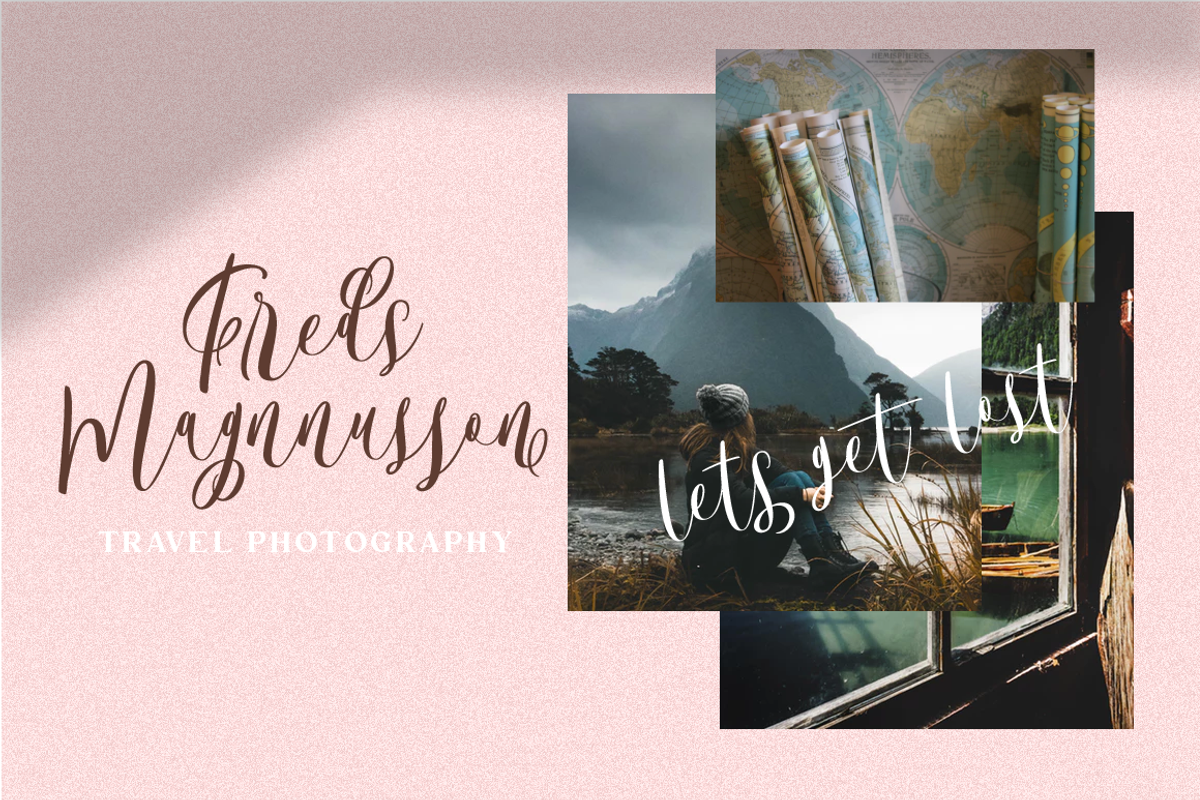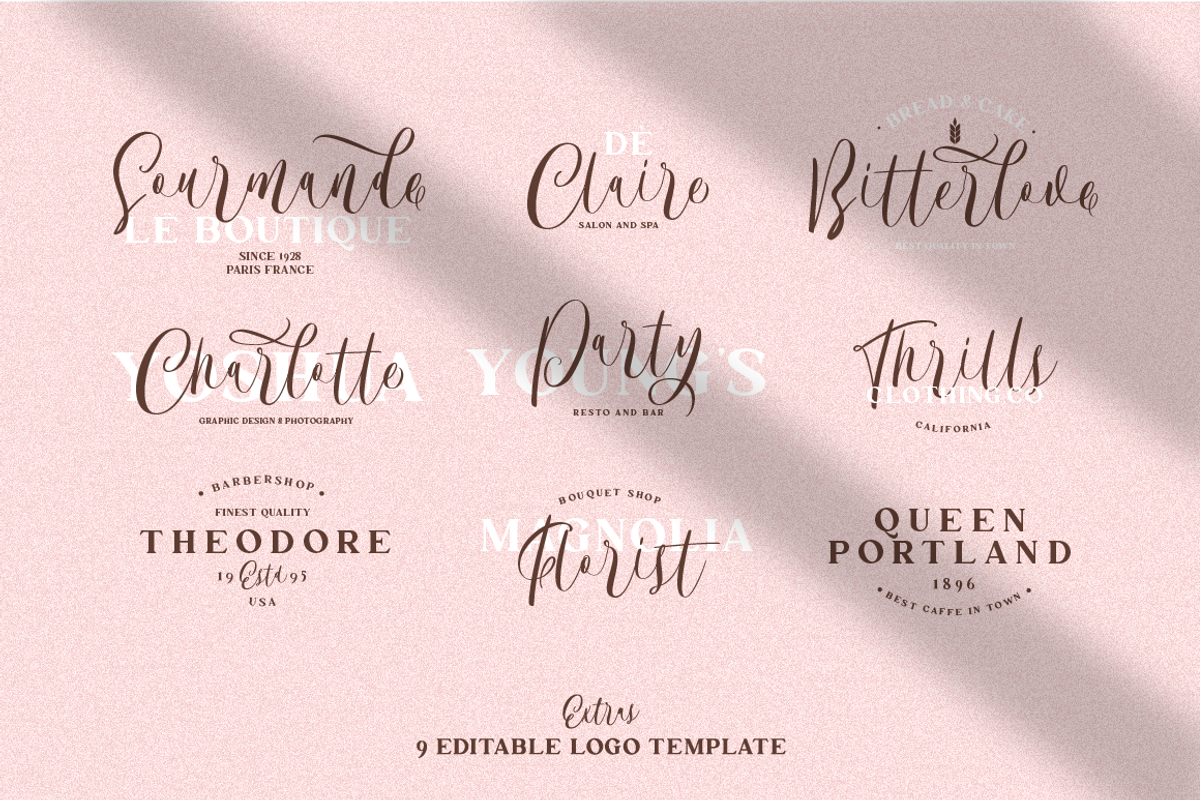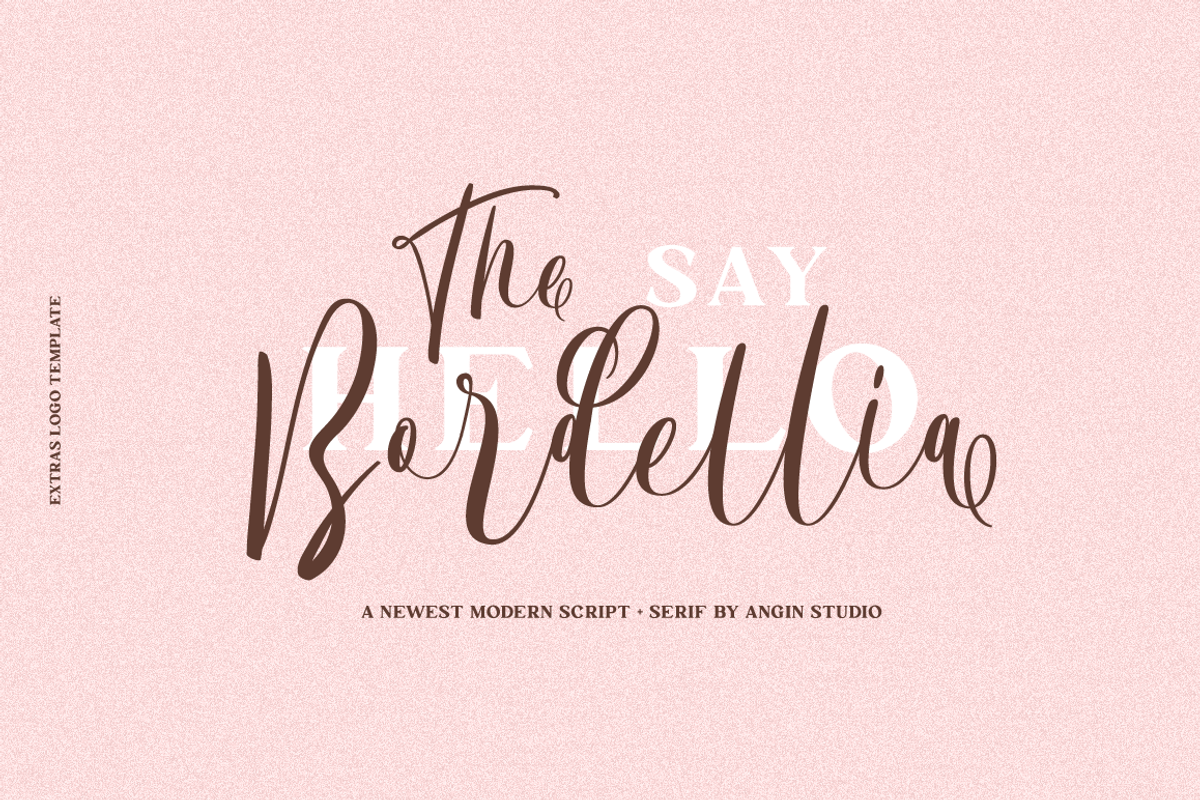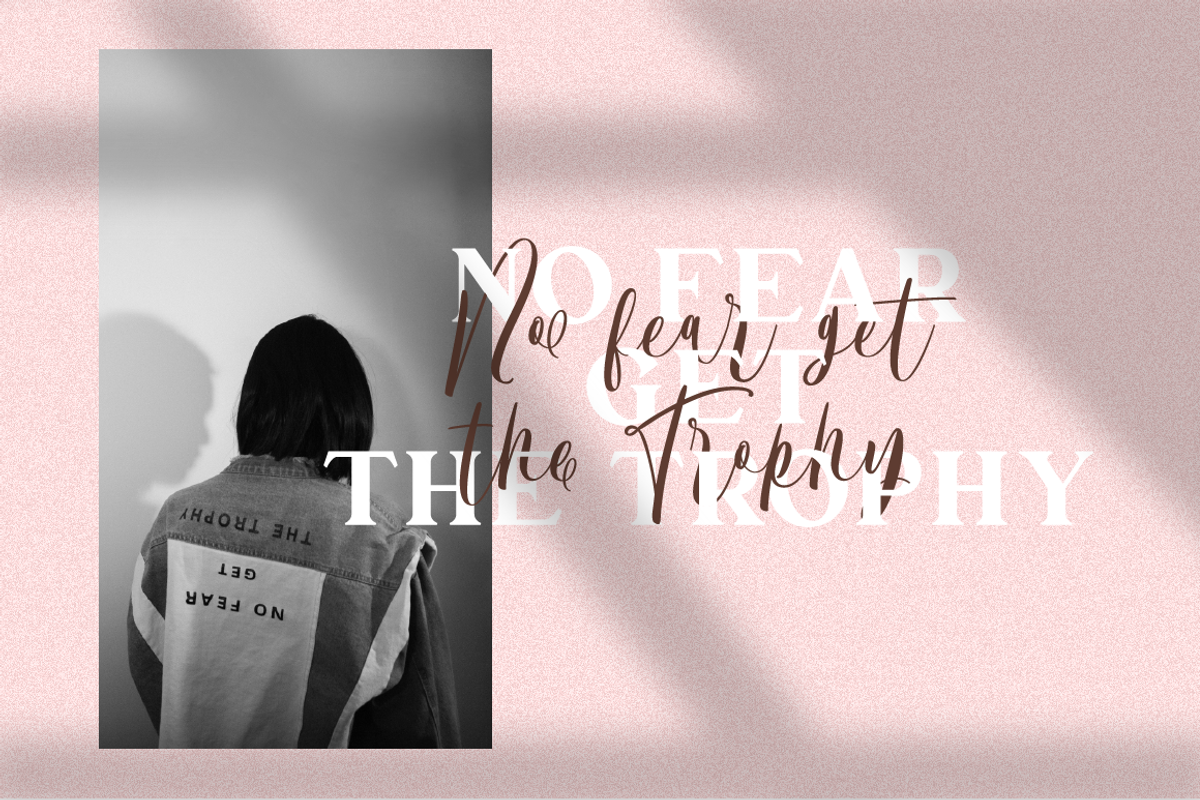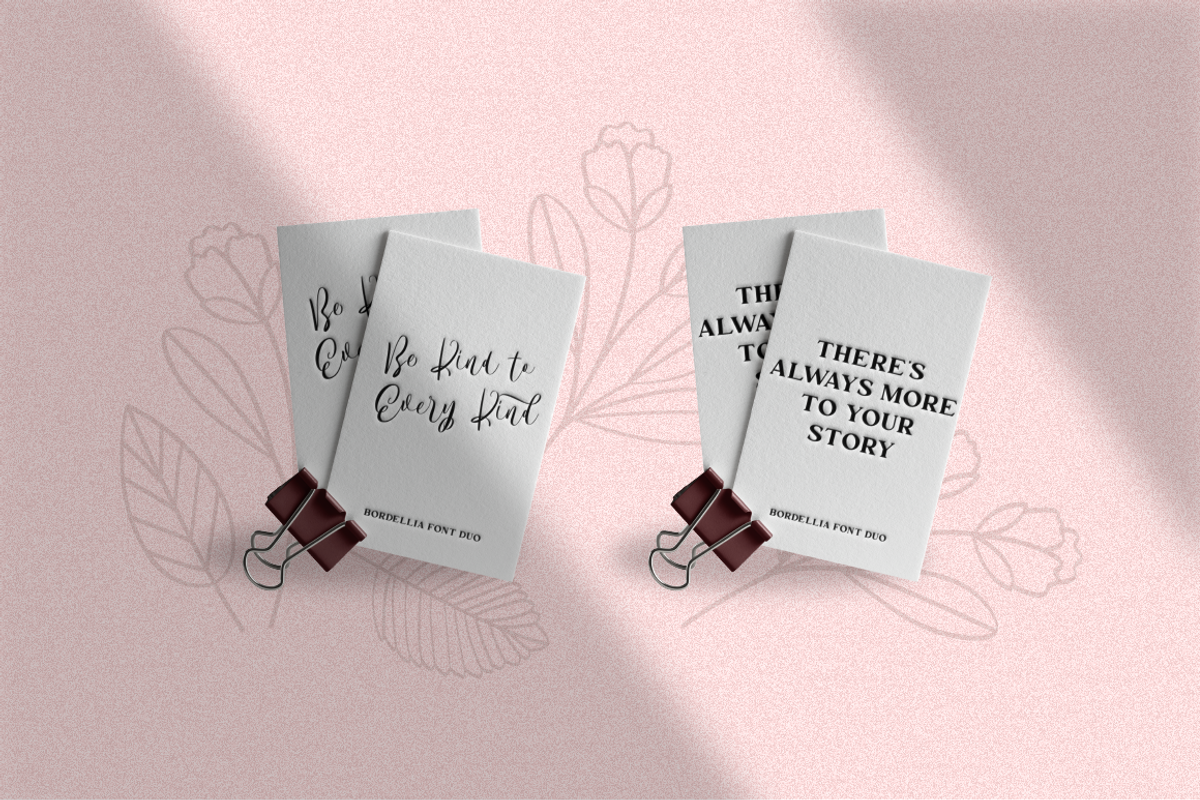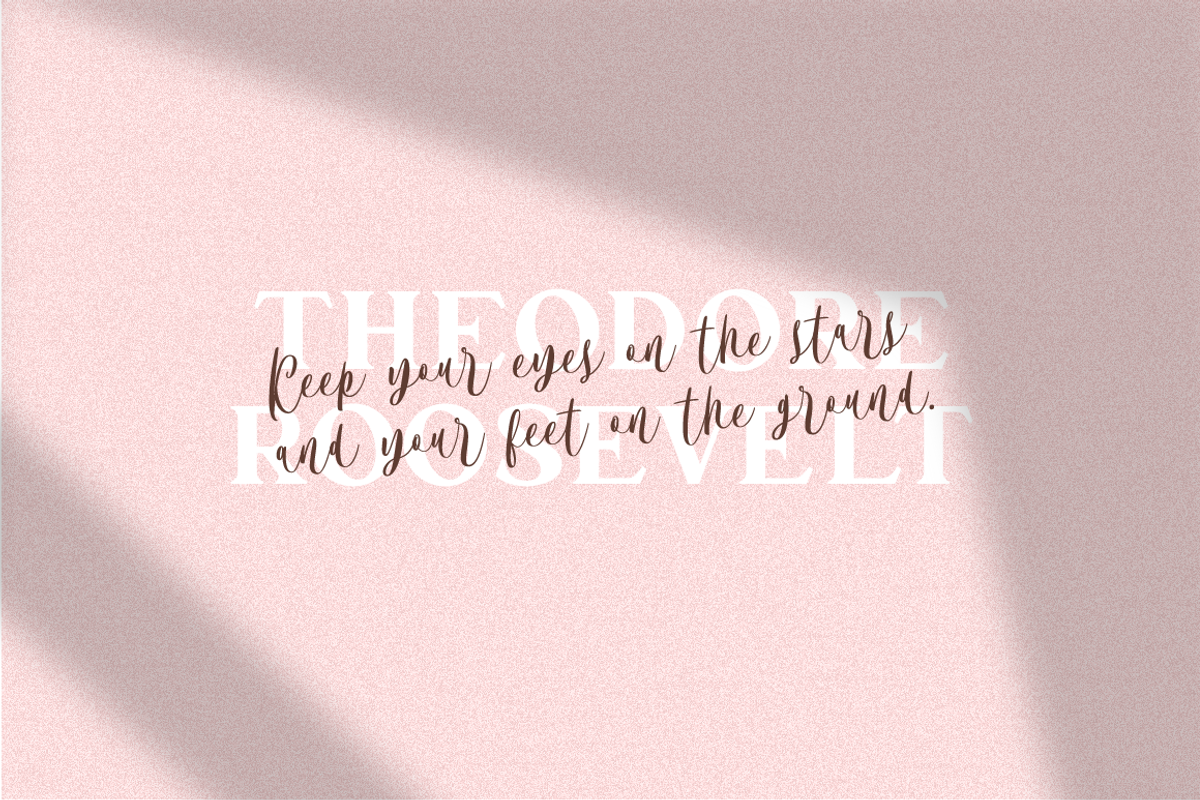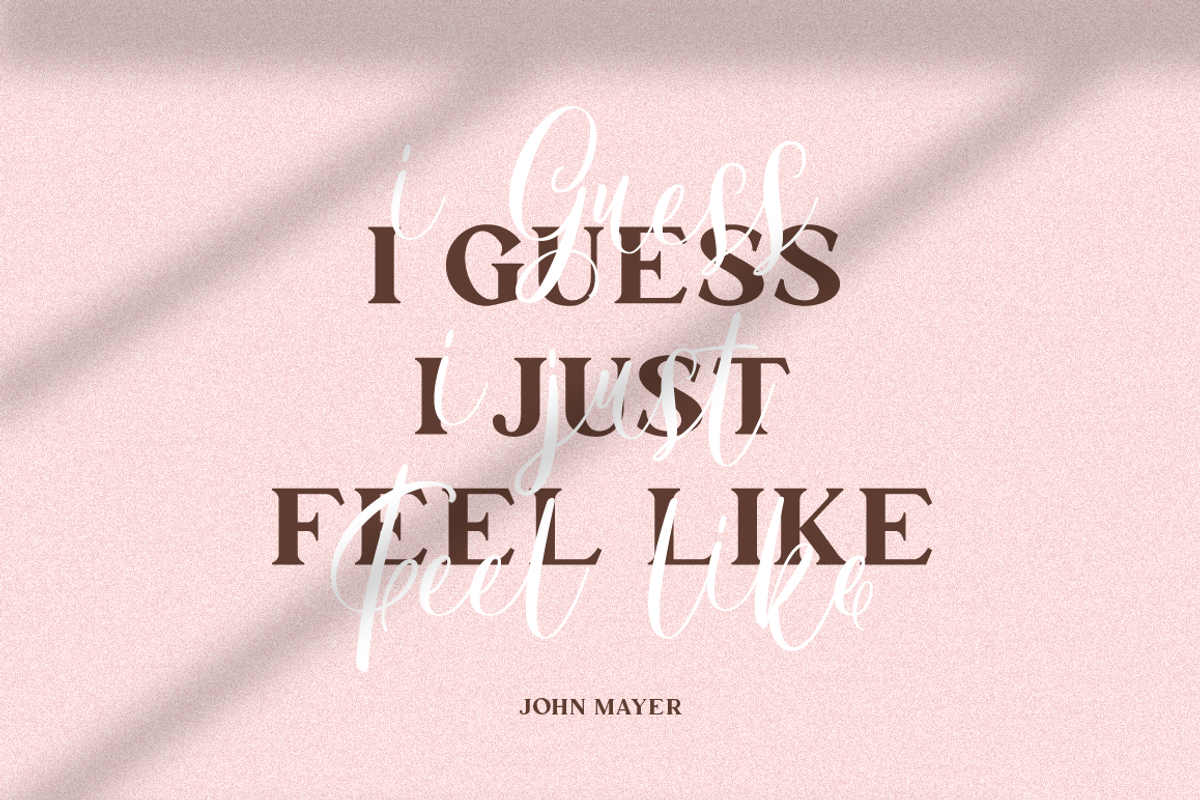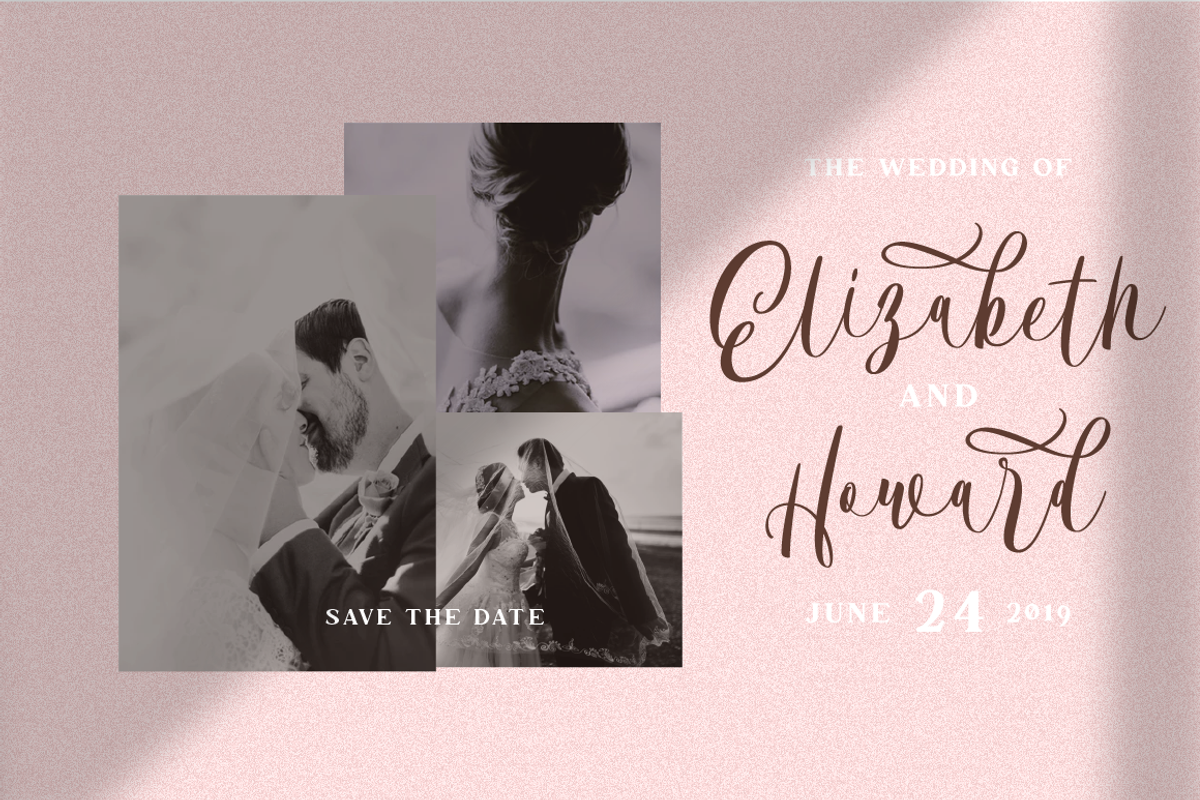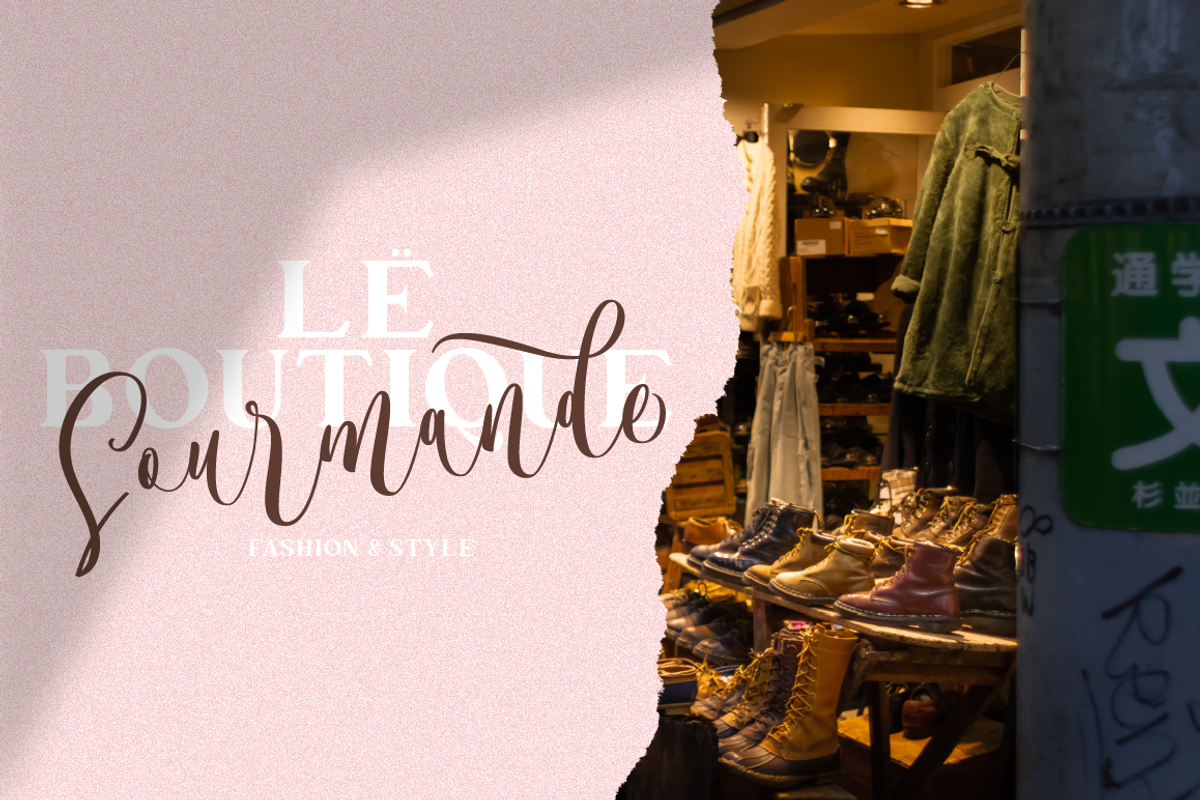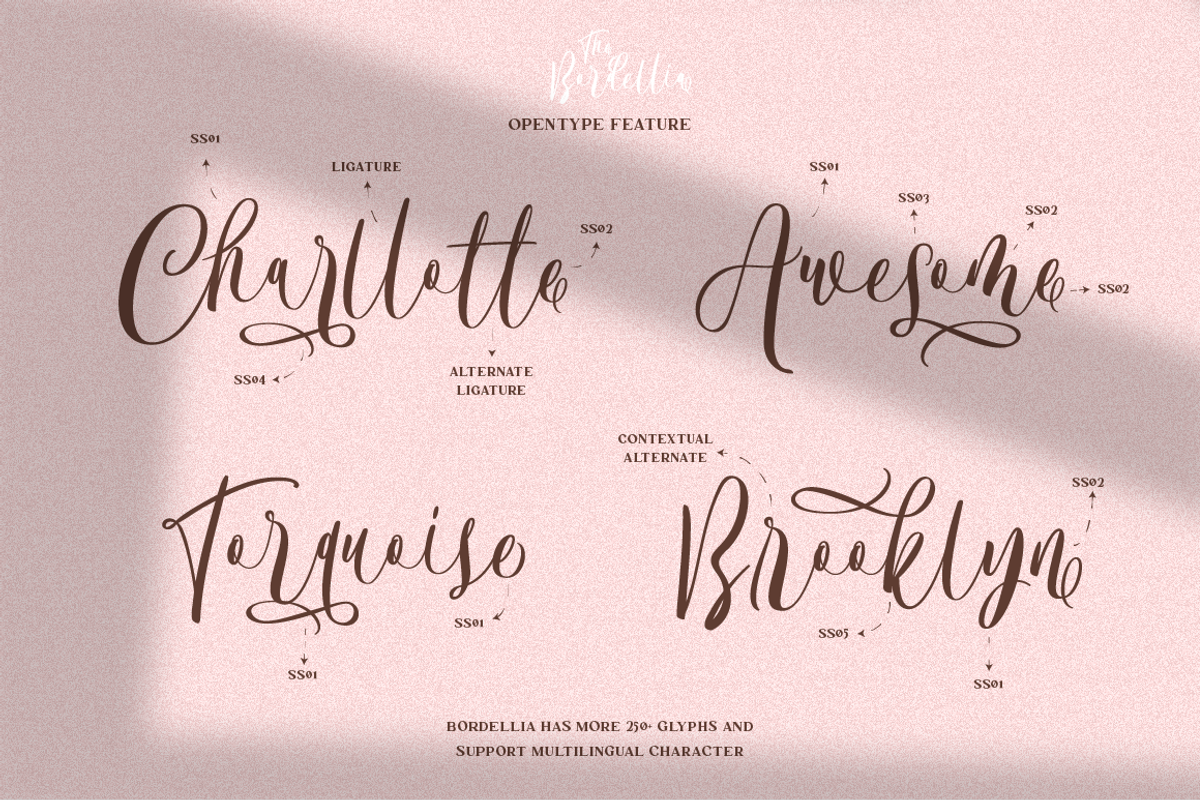
The Bordellia Font Duo
The Bordellia Font Duo is a perfect pair of serif font and modern brush font inspired by modern brush calligraphy. Designed to work together and give an elegant, beauty and spread a fresh feel to your design, every letter created carefully and naturally to made it look pleasing to the eyes.
The Bordellia Font Duo is perfect for branding, fashion catalog, apparel, wedding invitation, book cover, coffee menu, magazine, even for your social media content, this versatile font duo will help you alot.
- ligature
- discretionary ligature
- stylistic alternate
- contextual alternates
- multilingual support
The Bordellia Font Duo opentype feature will allow you to expand the posibility of mix and match the letters and make your design more interesting.